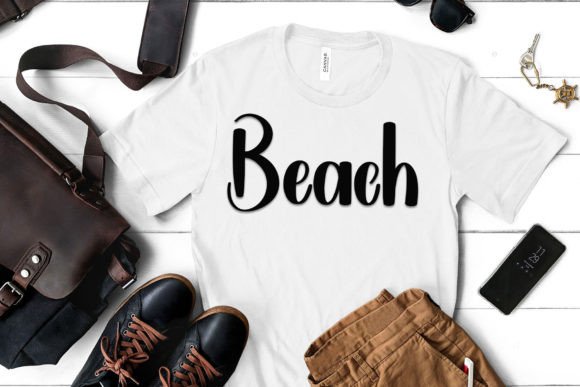
Mickey Mouse font has a bold, playful handwritten style. It has thick, rounded letters that look like they were drawn by hand. The font feels fun and lively, perfect for giving a cheerful and friendly vibe.
Mickey Mouse Font